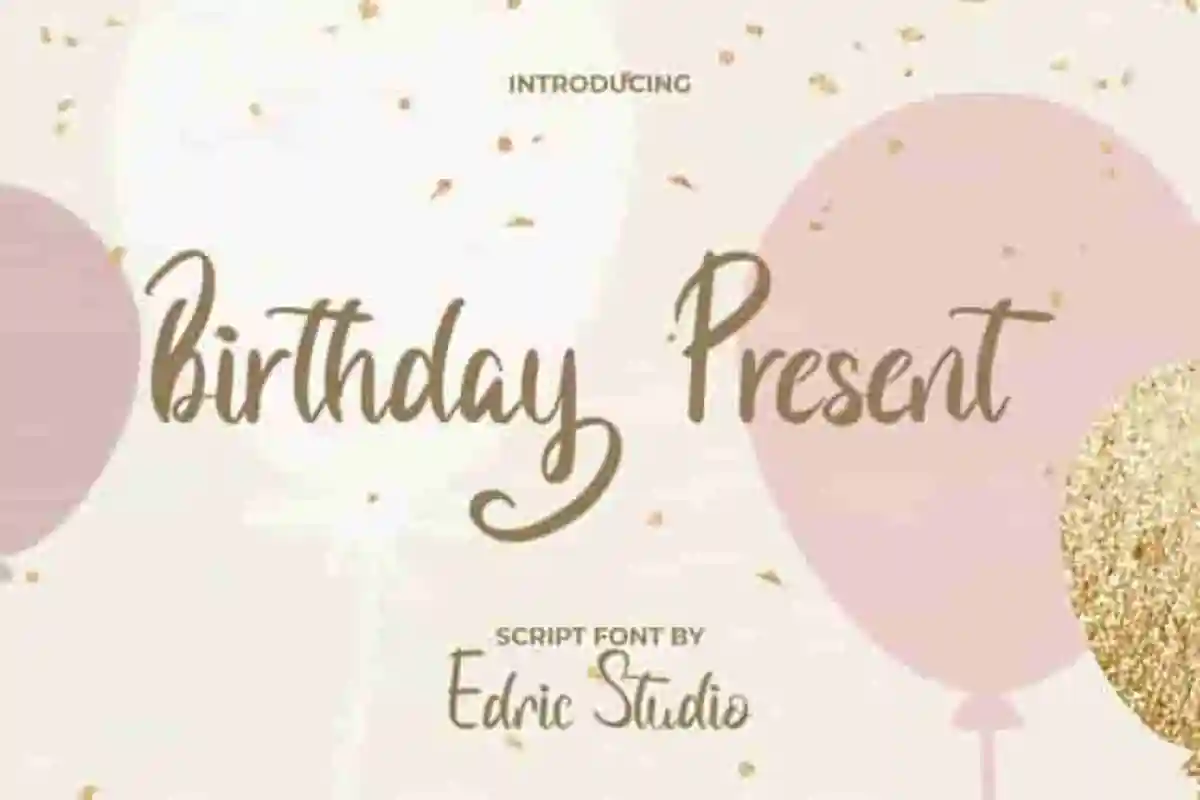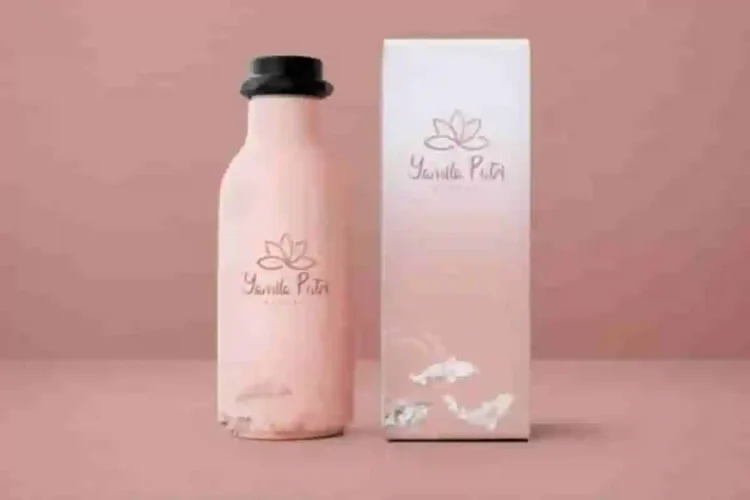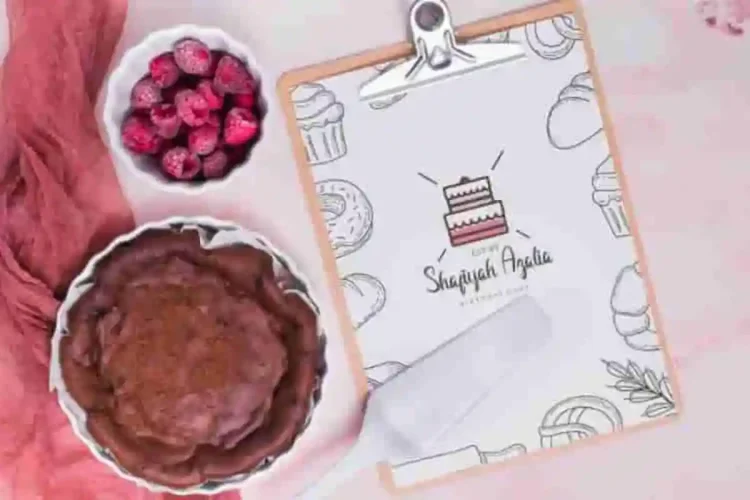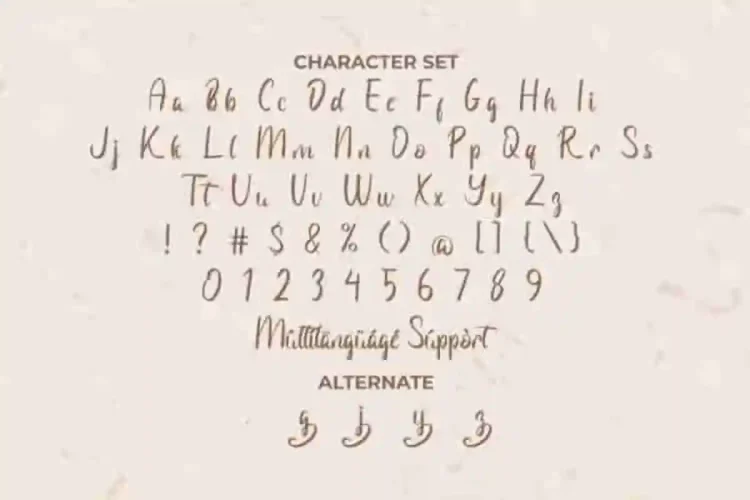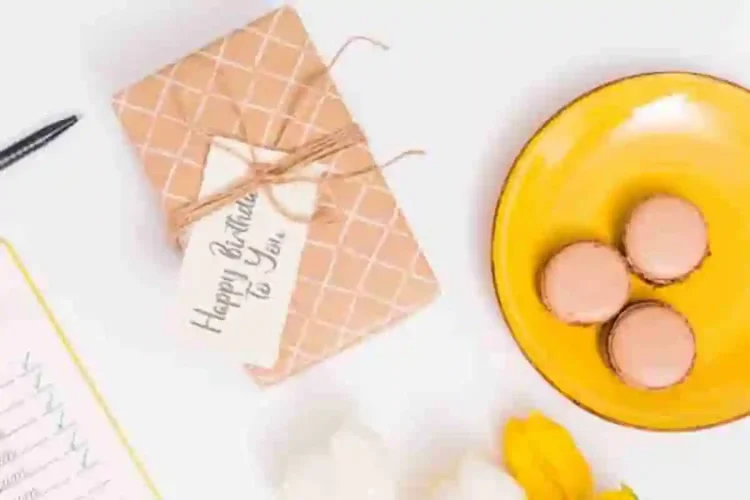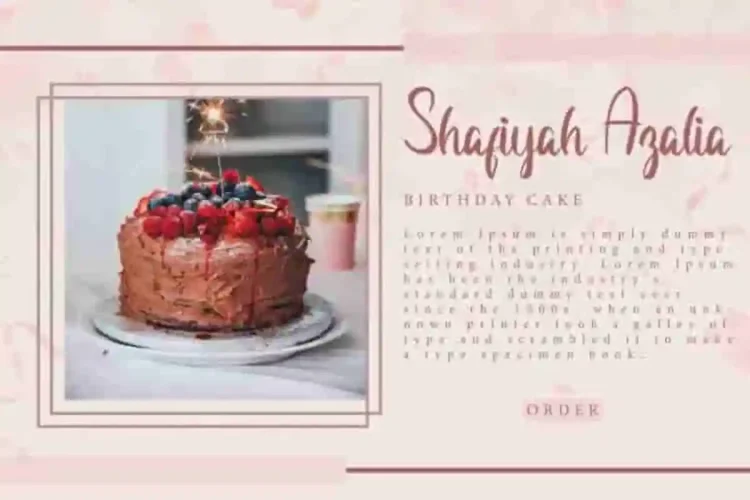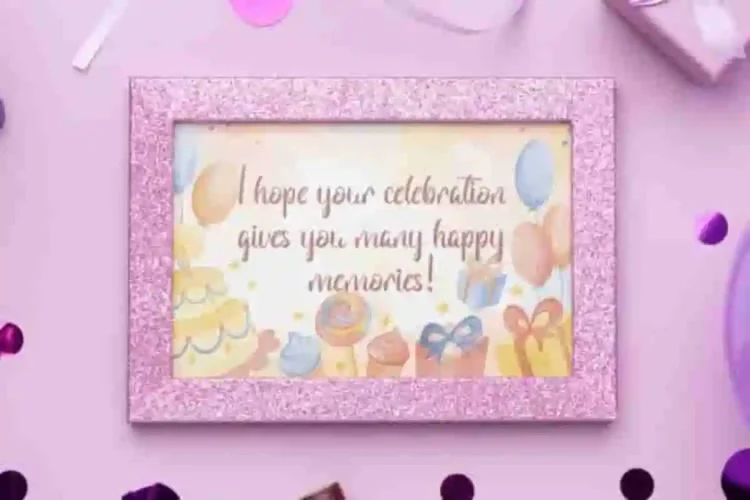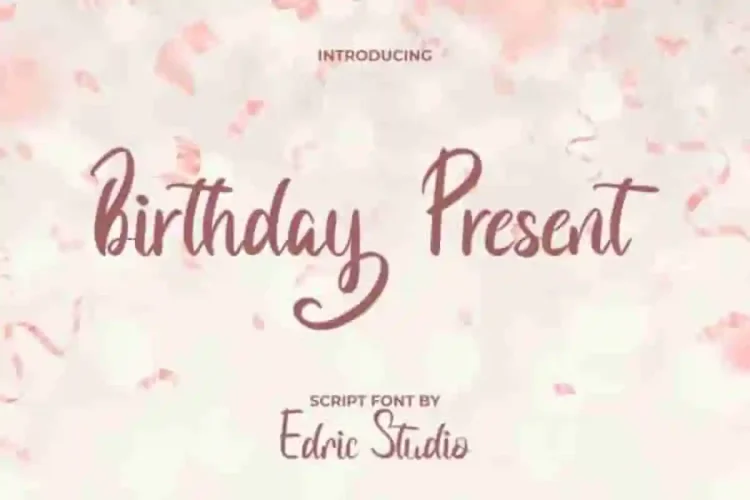
Birthday Present Script Font is a cheerful yet simple hand brush script font with birthday party theme. One glance at this typography can make you remember the beauty of the most precious celebration in your life. Inspired by birthday parties and joyful gatherings, this font captures the essence of fun and happiness, making it a perfect choice for designs that need a playful and heartfelt touch.
Birthday Present Script Font comes with a full set of Uppercase and Lowercase Basic Characters, Number, a large range of Punctuation and Symbol. It has a stunning characters set, perfectly managed with well spaced and kerning.